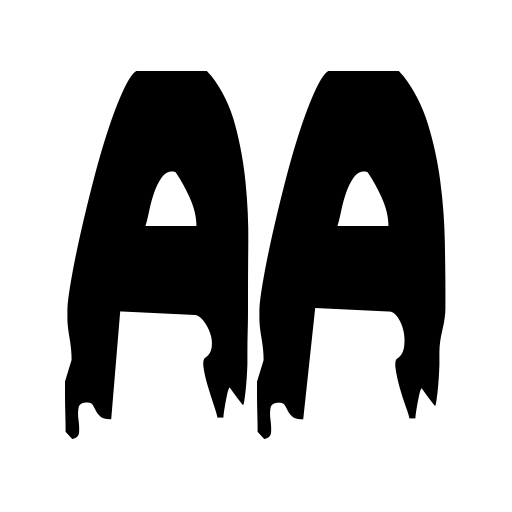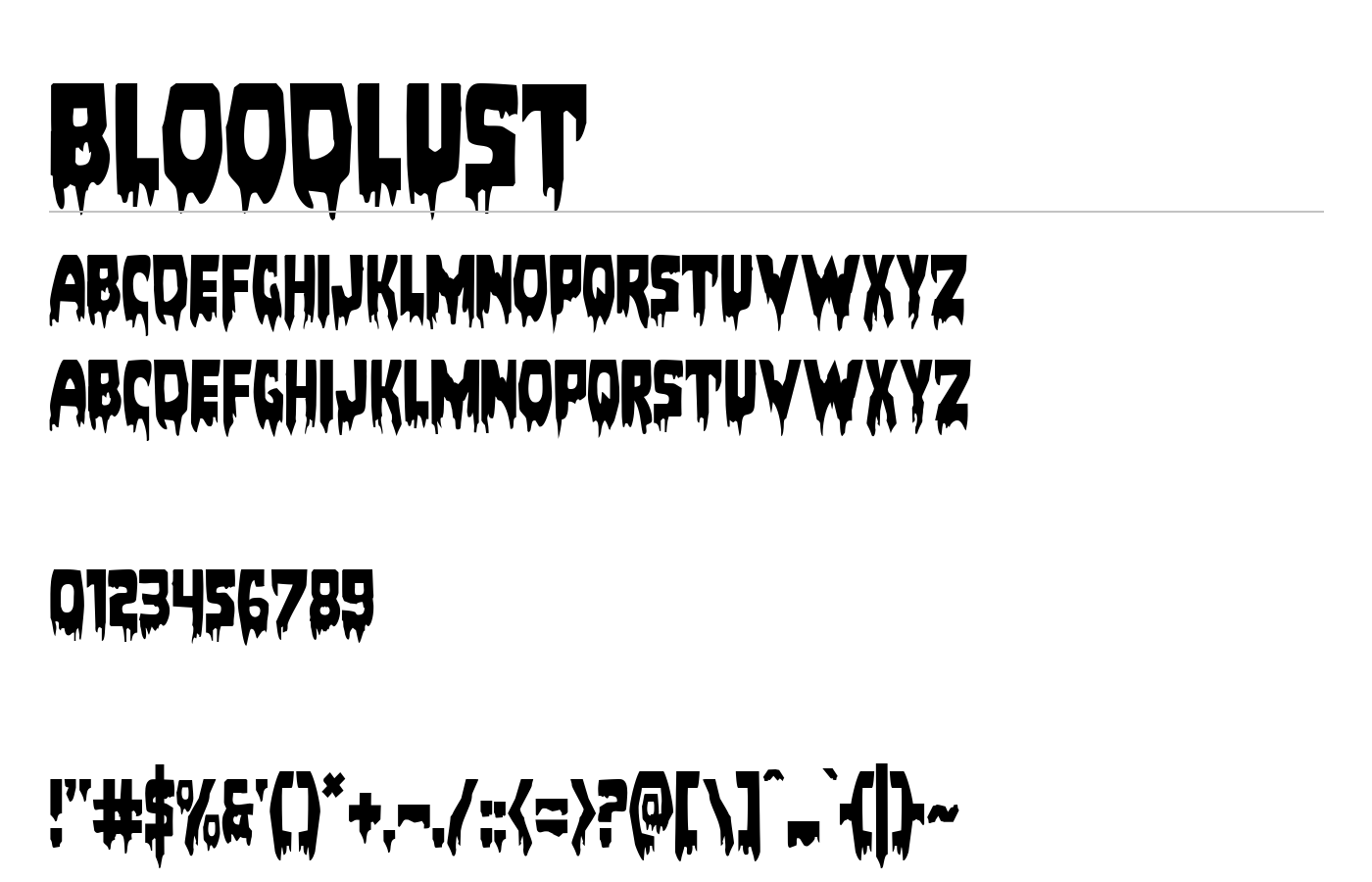
Bloodlust is a bold, condensed display font with dripping, jagged edges that evoke a spooky, horror-themed vibe. Its thick strokes and uneven, melting shapes make it perfect for Halloween designs, posters, or any project needing a dramatic and eerie atmosphere. This font stands out in headlines and titles, adding a striking, playful yet sinister mood.
Bloodlust Font
About Bloodlust Font